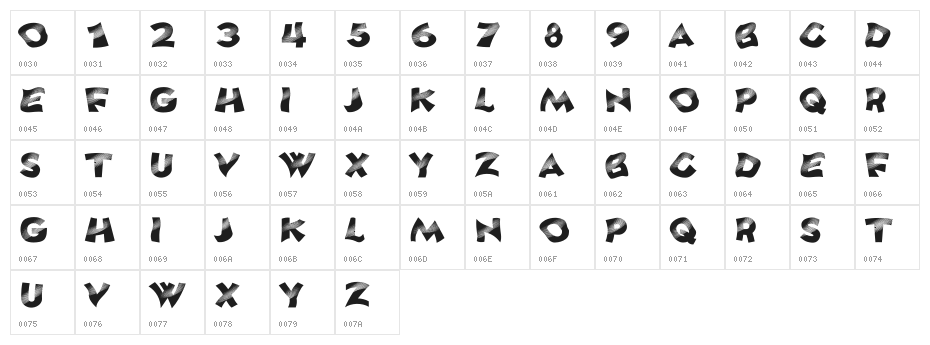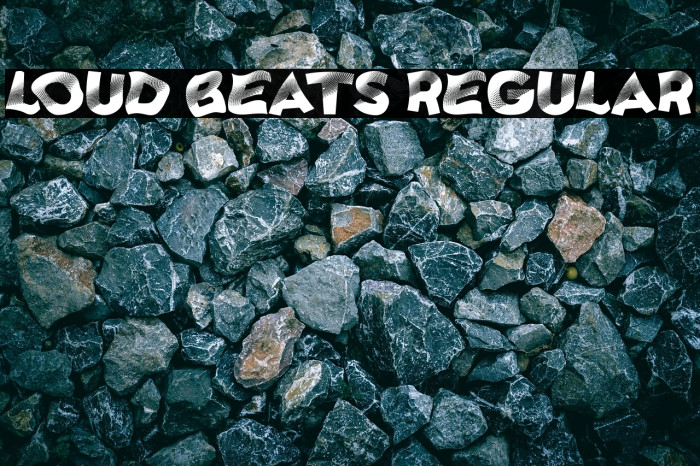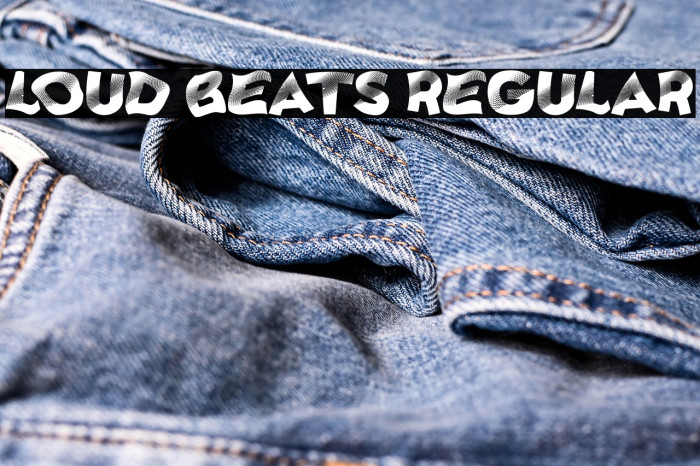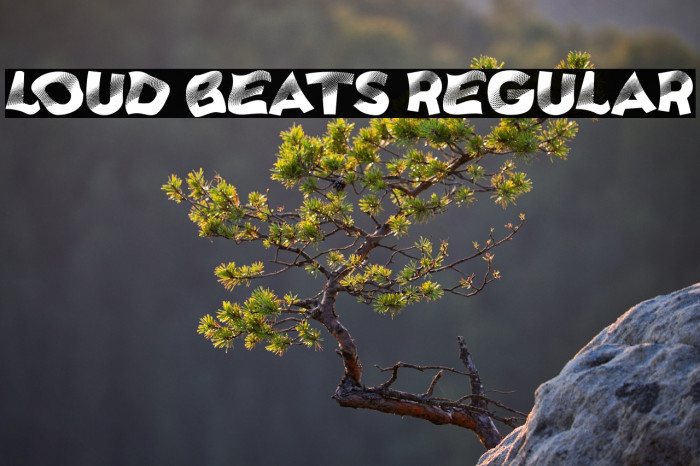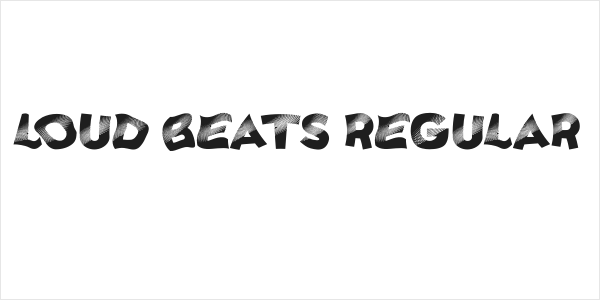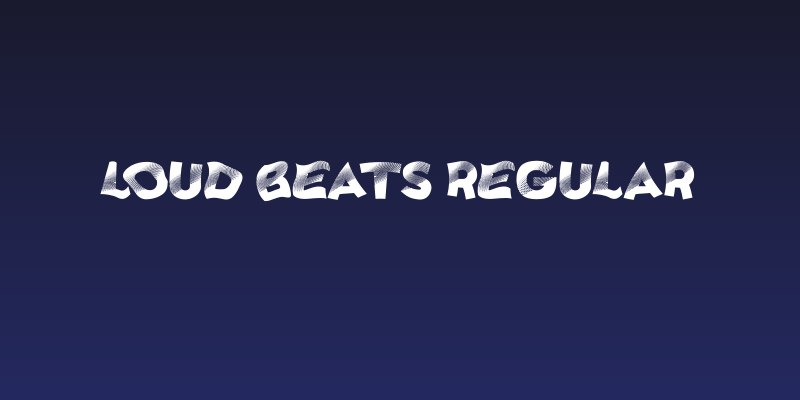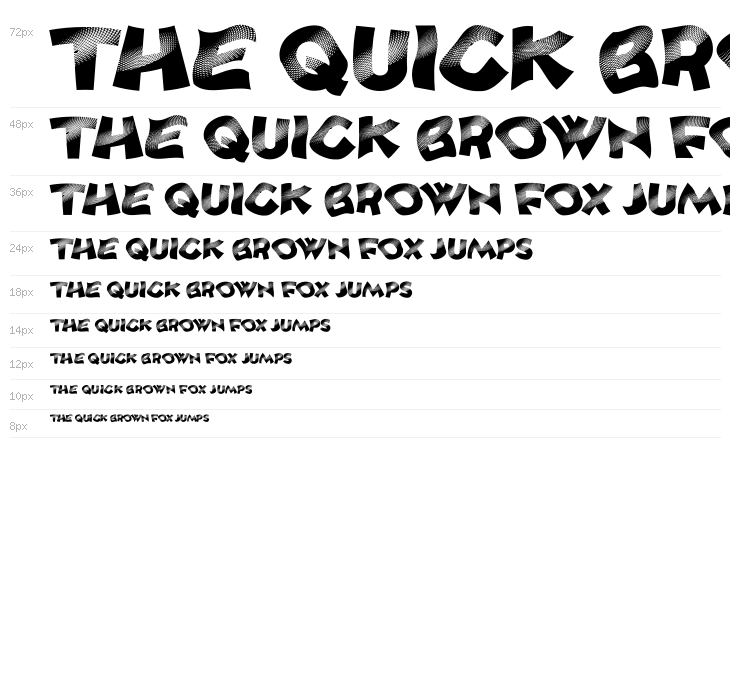
Loud Beats Regular Font
Loud Beats Regular Description
This font features a bold and dynamic style with a distinctive halftone pattern that gives it a sense of movement and energy. The characters are wide and have a playful, almost cartoonish quality, making them stand out with a strong visual impact. The use of shading and gradients within each letter adds depth and a three-dimensional effect, enhancing its decorative appeal. This font is particularly eye-catching and is designed to grab attention, making it ideal for creative and bold design projects.
| Use Case | Headlines, Posters, Logos |
| Proposed Projects | Ideal for music event posters, album covers, video game graphics, and other creative projects that require a bold and energetic typeface. |